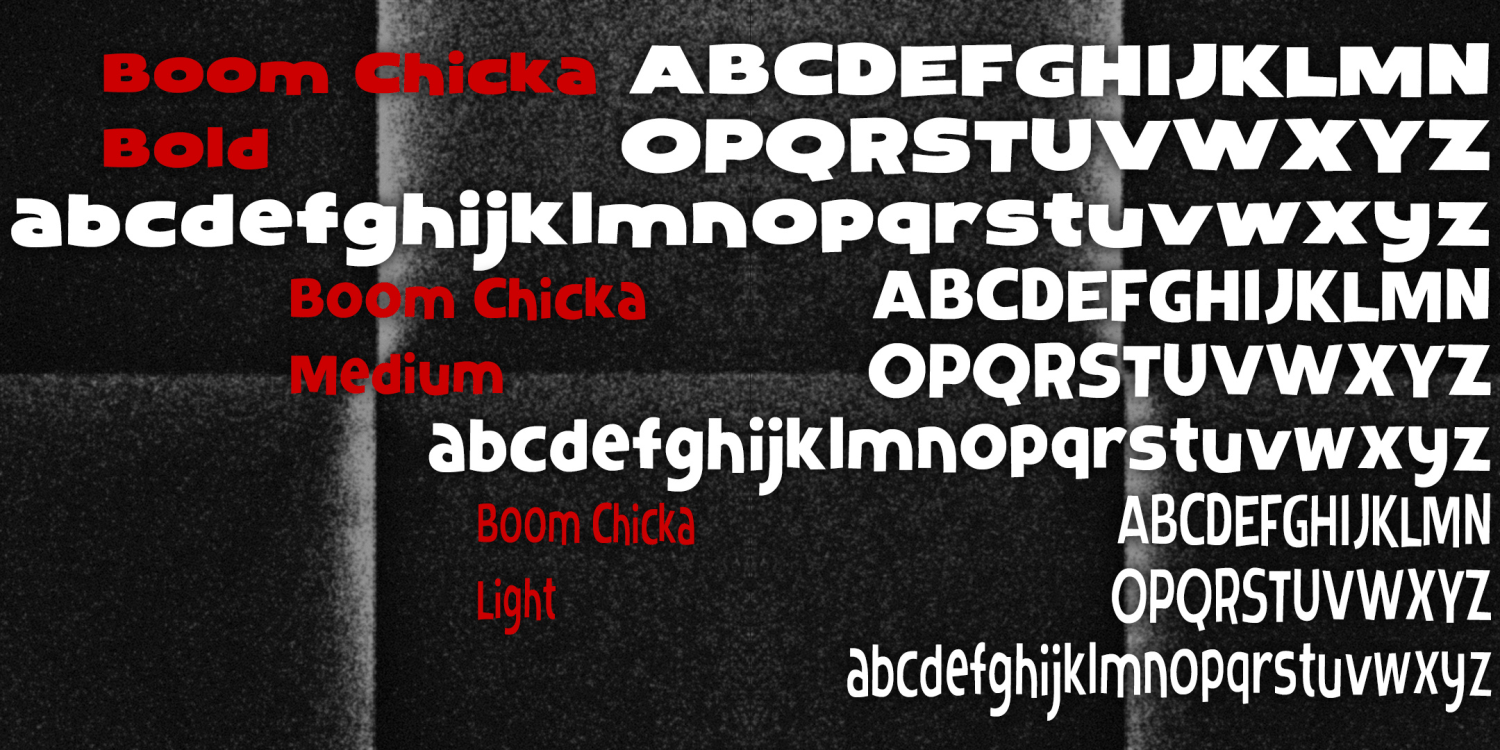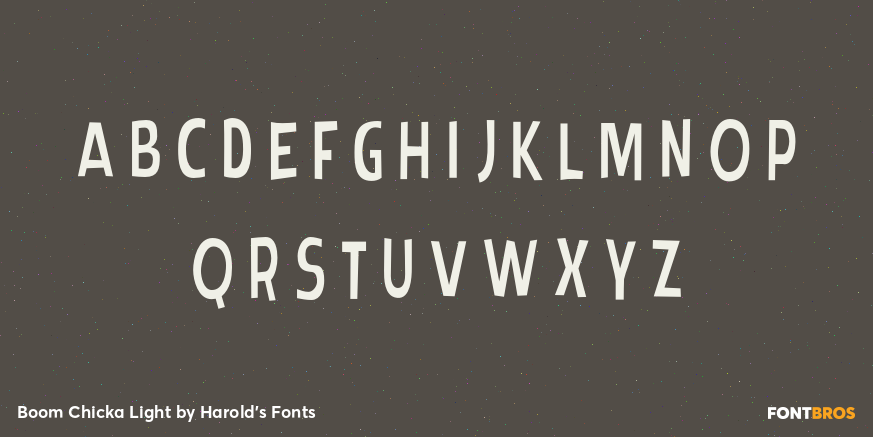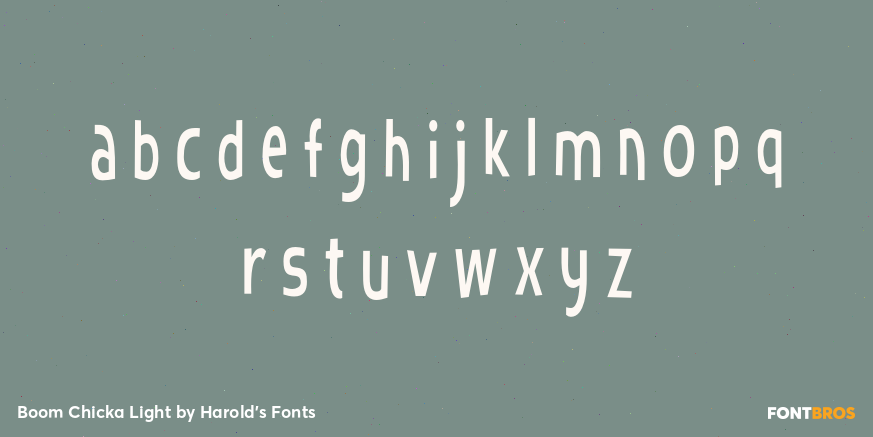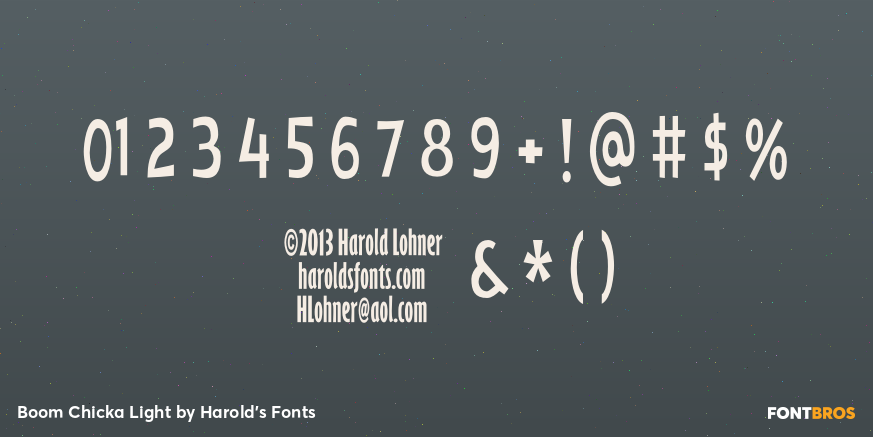
Boom Chicka Light
Boom Chicka is a set of three fonts with a friendly, bouncy informality, inspired by a 1950s movie poster. Comes in 3 weights, Light, Medium and Bold.